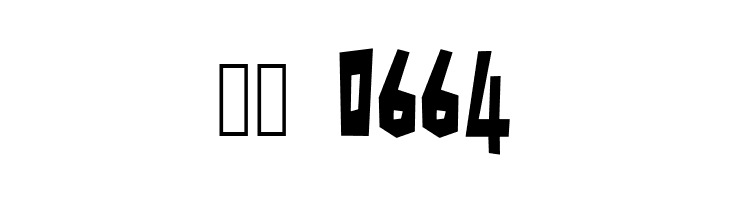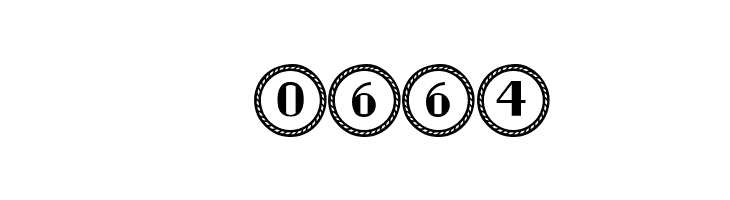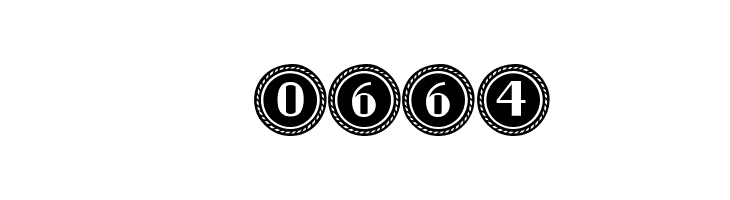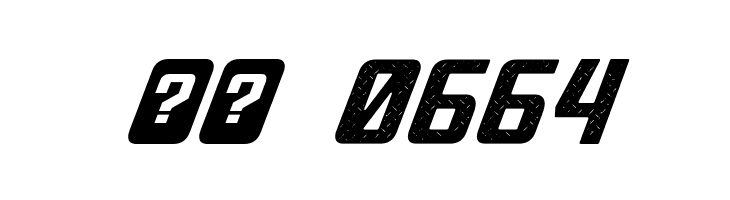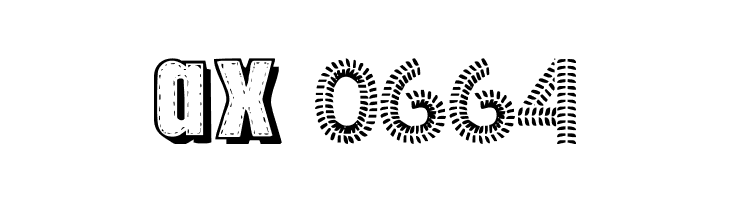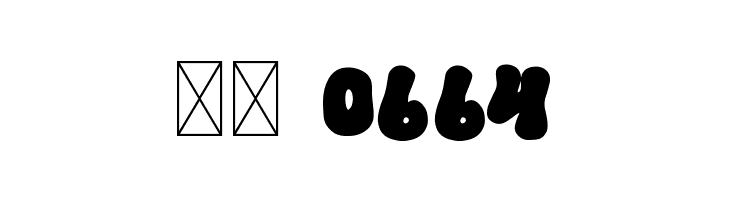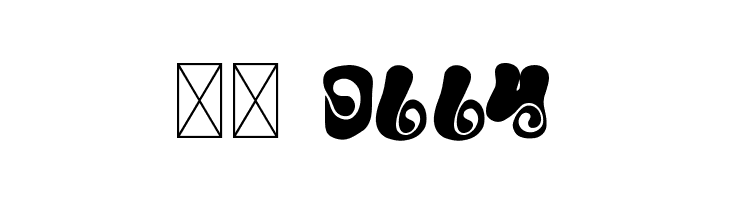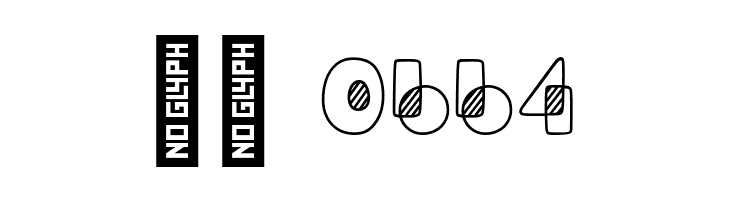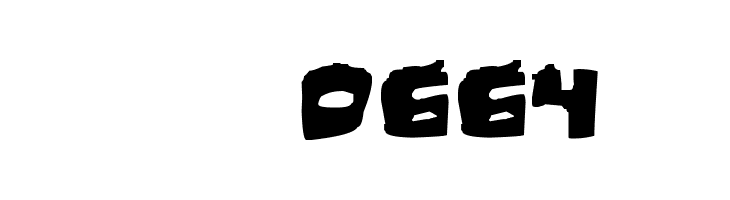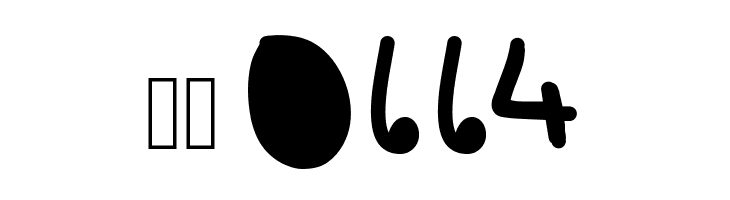
A bold, distressed font with a grungy, dripping effect.
A bold and fluid script font with interconnected, expressive strokes.
A bold, angular, and geometric font with a striking and dynamic appearance.
A bold, playful font with rounded, bubbly characters and a retro-modern vibe.
A bold, playful font with a unique melted effect, perfect for creative projects.
A bold, whimsical font with swirling, dynamic shapes and high contrast.
A bold, grungy font with a spray-painted, graffiti-like appearance.
A whimsical, decorative font with floral and spiral embellishments.
A bold, playful handwritten font with a friendly, rounded style.
A decorative sans-serif font with bold letters encased in circular borders.
A bold, decorative font with characters encased in circular badges, offering a vintage and playful look.
A playful, hand-drawn font with tall, narrow characters and a whimsical style.
A bold, rounded, and geometric font with a modern style.
A bold, geometric font with a 3D shadow effect and sharp angles.
A bold, geometric font with a 3D effect and sharp angles.
A bold, hand-drawn font with a playful and energetic style.
A bold, textured font with a rugged, industrial style.
A whimsical, handwritten font with flowing curves and artistic flair.
A playful, geometric font with bold outlines and unique internal patterns.
A bold, high-contrast serif font with elegant, classic numerals.
A bold, high-contrast serif font with elegant numerals.
A bold, geometric font with a modern-retro aesthetic, perfect for impactful designs.
A bold, narrow font with high contrast and a modern, sleek appearance.
A bold, outlined 3D font with a strong, decorative style.
A bold, 3D italic font with outlined characters and a futuristic style.
A bold, 3D outlined font with a leftward slant, offering a dynamic and modern look.
A bold, condensed font with a modern, geometric style.
A bold, condensed, and italic font with high contrast, perfect for striking headlines.
A bold, condensed, and left-italic font with high contrast and tight spacing.
A bold, condensed, semi-italic font with a modern and dynamic style.
A bold, condensed, and highly italicized font with tight spacing and high contrast.
A bold, expanded font with a strong vertical emphasis and consistent stroke thickness.